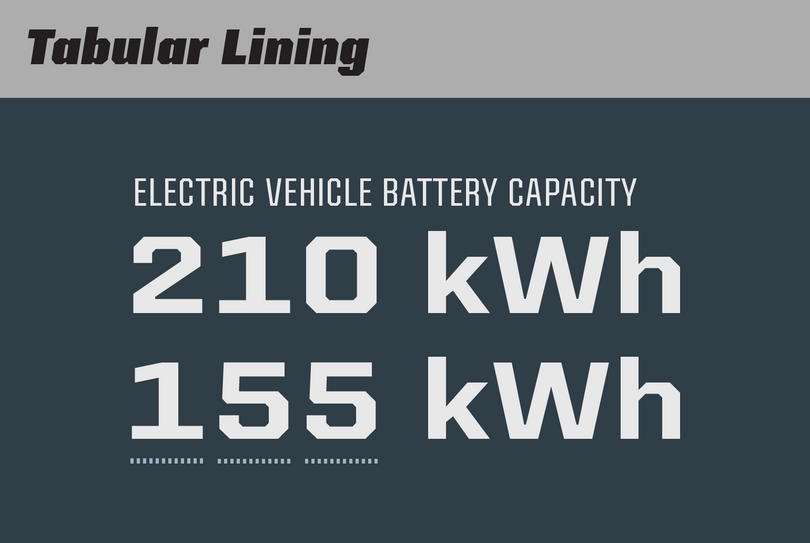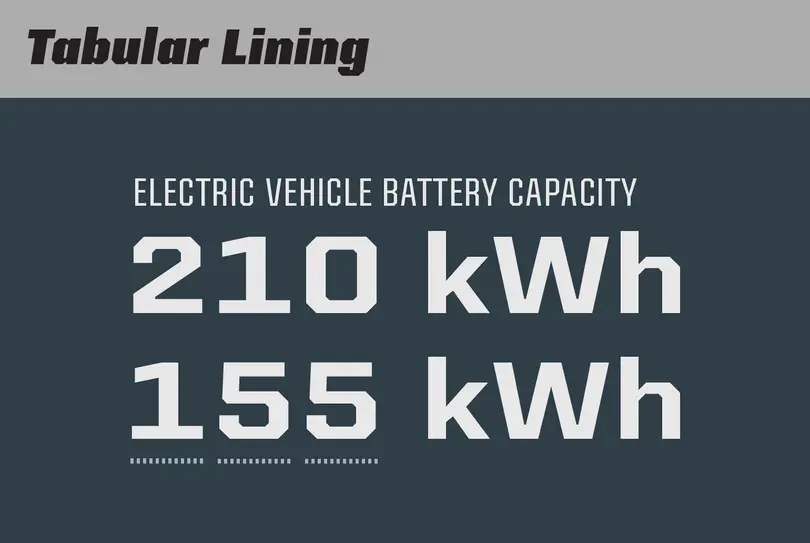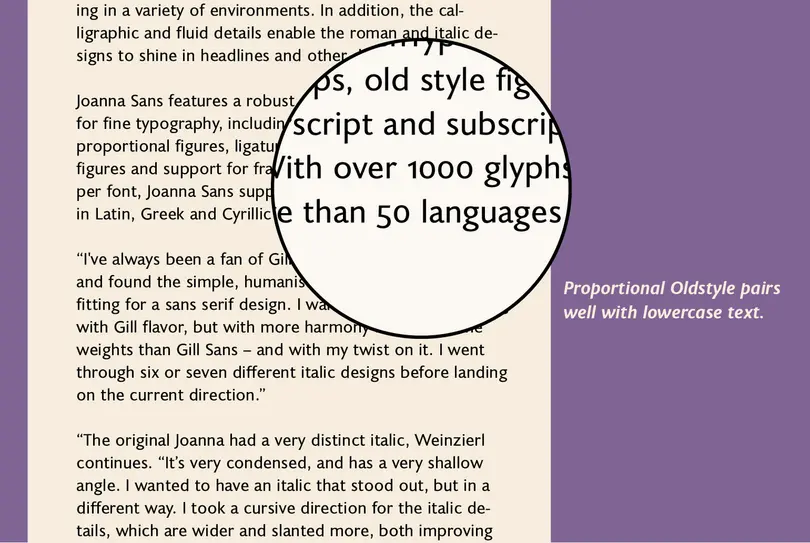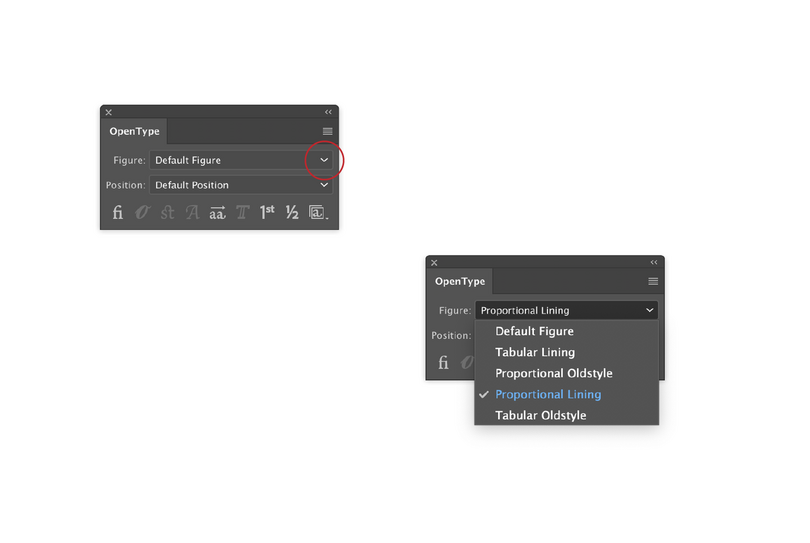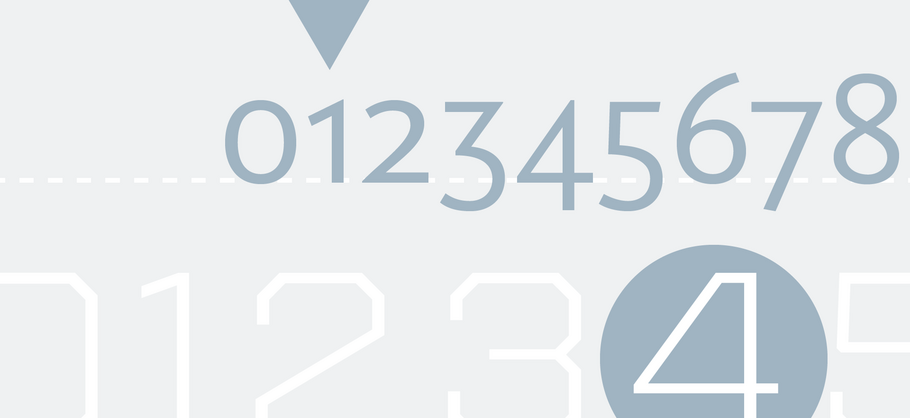
OpenType walkthrough: How to use figure styles in Illustrator.
„ The OpenType options in Adobe apps vary, but in recent years they have become more uniformly implemented. “
OpenType walkthrough: How to use figure styles in Illustrator.
When designing with type, the use of numbers can take a layout from good to great. I’ll detail the four main styles below, what they look like, and how to use them to the best of their ability. I’ll also add a few tidbits of related information as we go.
When typographers talk about the characters that make up numbers, we call them figures. Numbers, after all, can be anything—10, 200, 0.0125, whatever. So: 10 is a number, but 1 and 0, individually, are figures.
1. Tabular lining, best for tables & columns
The most common figures found in fonts are tabular lining figures. “Tabular” means the figures are designed for tables, so the figures all have the same advance width. “Lining” means the figures align horizontally with each other, usually around the height of the capitals. Real life examples include an Excel spreadsheet or a receipt.
When the figures are aligned, the table is easier to read and scan for information. Making something easy to read is one of the typographer’s main goals.
Some typefaces have figures that are a little bit shorter than the caps to balance the color and weight with the rest of the typeface. In some cases, if the figures were as heavy (stroke width) as the caps, they would stand out as being too dark. This is an optical adjustment thing, and a stylistic option for the type designer. See Helvetica for an example of figures that are a little shorter than the caps.
The stand-out characteristic of tabular lining figures is usually a numeral one with a lot of white space on both sides, sometimes compensated for with a wide flag and foot serifs to try to fill some of that white space.This is a similar concept to monospaced fonts, where all of the glyphs are the same width, as seen in typewriter-style typefaces.
Tabular lining
2. Proportional lining, best for headlines and some text
Proportional lining is probably the second most common style. These are lining again, as above, so they are similar to the cap height. But instead of being tabular, the horizontal advance width is proportional to the shape of the figure. This means the one will be narrower than the five, for example. Proportional spacing allows for a more even texture, a balance of black and white.
These can be preferable in text over tabular lining figures, and can improve headlines dramatically.
Proportional lining
Oldstyle: Proportional & Tabular
3. Proportional oldstyle, best for text
Proportional oldstyle figures are designed for text. They bounce up and down on the baseline, blending in with the lowercase, and are proportionally spaced for even typographic color.
For a period of time, this was the primary way figures were written. Lining figures were introduced later on, around the 19th century, so the ‘oldstyle’ moniker refers to the dominant style before lining figures became popular. Everything is relative.
Oldstyle figures might not align with the lowercase x-height. It’s commonly a bit higher, like small caps. Some designs are famous for using proportional oldstyle figures by default, like Georgia. This style can be used for stylistic purposes as well, perhaps in a menu to add some finesse or contrast.
Proportional Oldstyle pairs well with lowercase text.
4. Tabular oldstyle, best for tables & columns in that oldstyle flavor
This is the odd one out. As the name describes, these figures are tabular yet with oldstyle forms. This makes sense from a logical point of view because it fills out the set: Lining in tabular and proportional varieties, and oldstyle in tabular and proportional. I have yet to see these used in the wild (outside of the type design world), but if you are setting a table that requires that oldstyle mood, look no further.
Some typefaces do have small cap sized figures as well. Again, I haven’t seen these in the wild, but I suppose they could be helpful if you are using the small caps heavily—a broader palette of styles to work with. But, pairing small caps with proportional oldstyle figures can work too.
Online previews
It can be hard to tell if your favorite font has these options. First, you could check the menus shown below, using trial and error. Some font packaging might give you a clue as well, something with ‘Pro’ in the name might have these extras. You could also contact the type foundry or designer directly. Many font vendors, like MyFonts.com, will show details about the font that include OpenType features, so have a look before you purchase a license.
Numerals and scientific typesetting
How to use figures with Adobe applications
The OpenType options in Adobe apps vary, but in recent years they have become more uniformly implemented. Of course, you can always check with Adobe’s documentation, when in doubt. Let’s look at them together.
Conclusion
As we look closer at the advanced options a professional font may offer in terms of OpenType figure styles, we can find ways to make these special tools enhance a larger design piece. Hey, it may be that one thing that prevents your client from complaining about the ‘kerning’ around the 1.